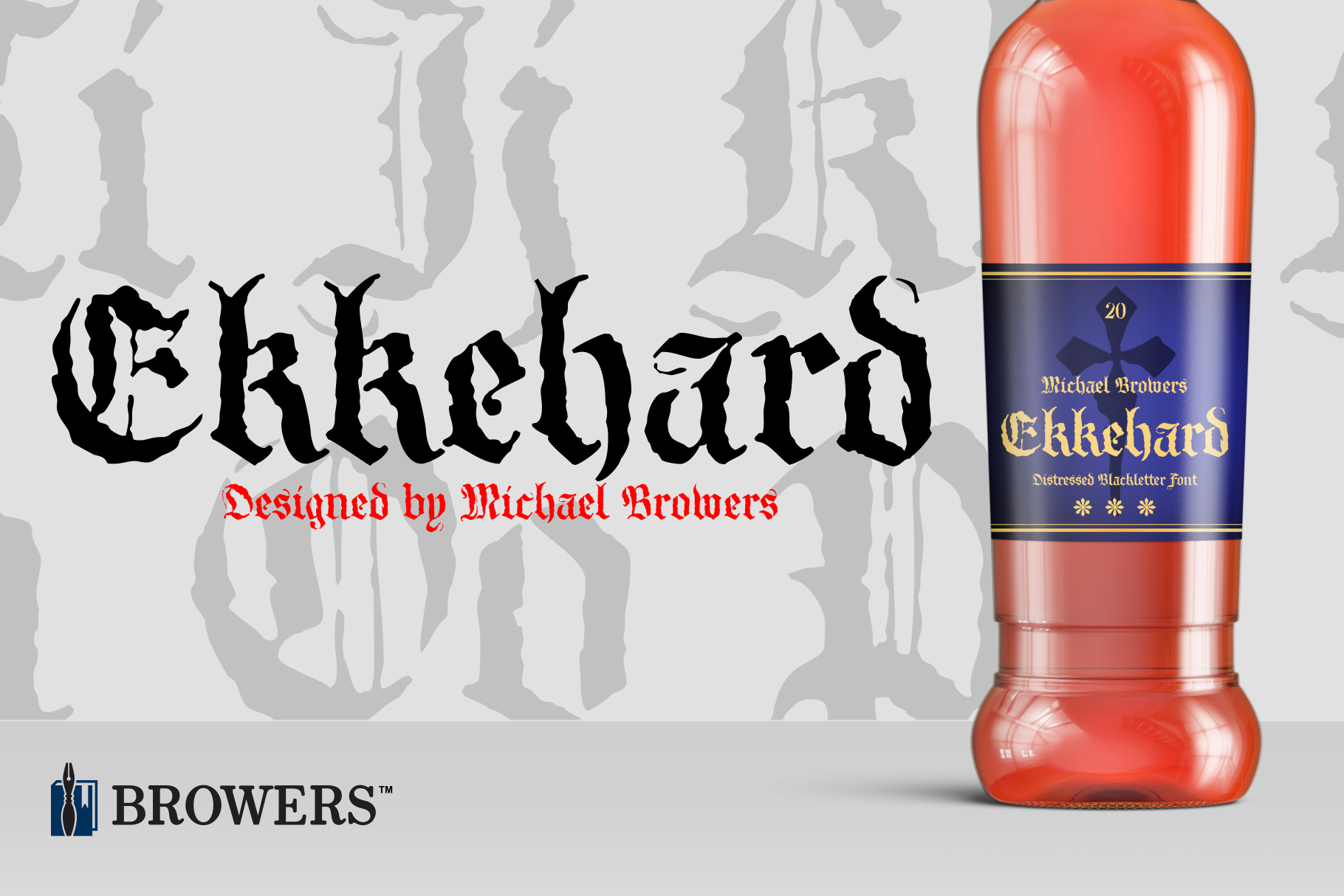
Ekkehard Font
Hand drawn by Michael Browers, Ekkehard is inspired by multiple blackletter typefaces that appeared in an 1862 printing of "The Doctrine of the Simple and the Power of the Powerless" by Hans Nielsen Hauge. The result is an eclectic distressed font that is ideal for logos, product packaging, headlines, posters, merchandise, greeting cards, and other projects requiring a vintage, hand-made feel.